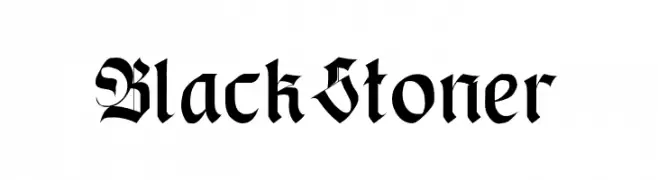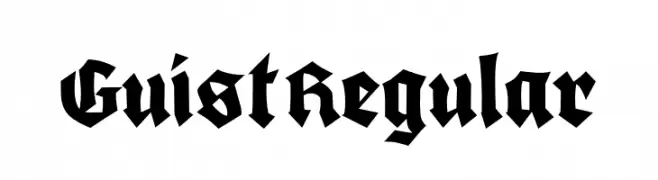
An intricate Blackletter font with bold, angular letterforms and ornate detailing.
A decorative, calligraphic font with intricate details and a classic, historical feel.
A bold, high-contrast Blackletter font with ornate, medieval-inspired letterforms.
A bold, blackletter font with sharp, angular lines and intricate detailing.
A fluid, handwritten style with a vintage, personal touch.
A decorative Blackletter font with intricate details and a historical, Gothic style.
An ornate, Renaissance-inspired decorative font with intricate patterns.
An ornate, medieval-style font with intricate, flowing strokes.
A bold, ornate Blackletter font with intricate serifs and flourishes.
A bold, dramatic blackletter font with intricate detailing.